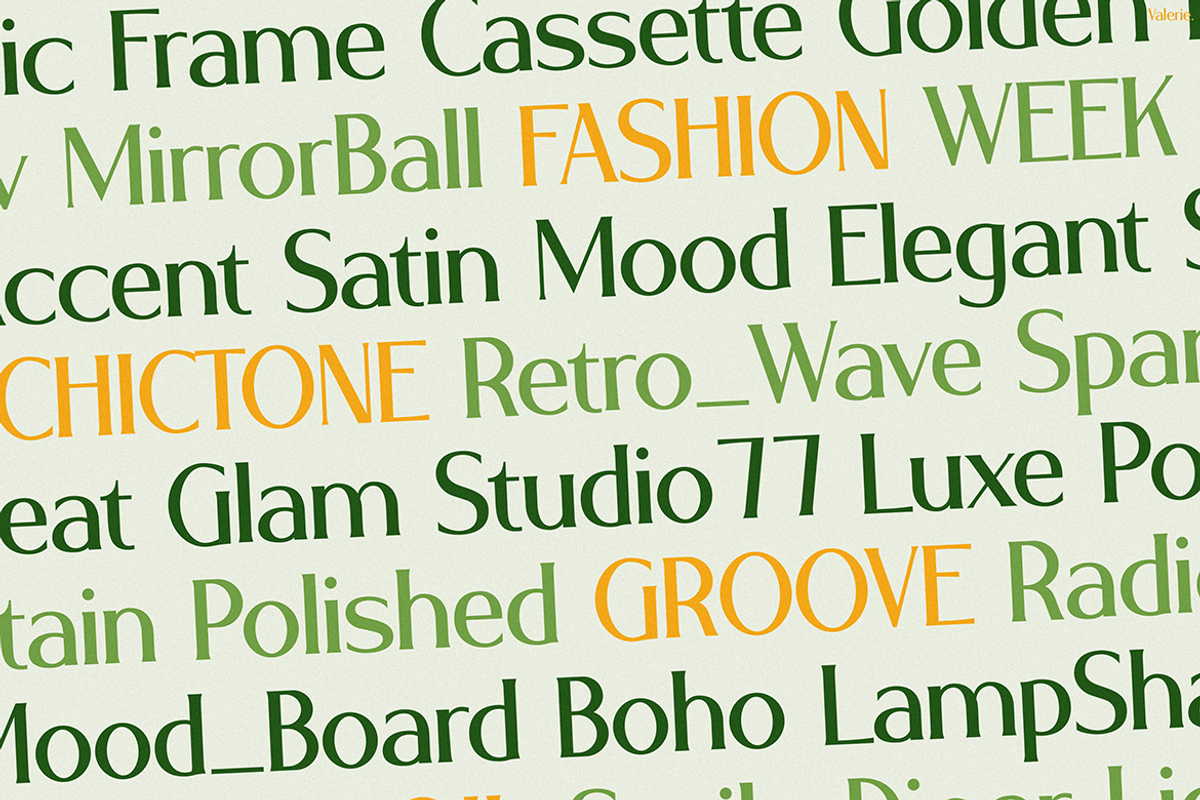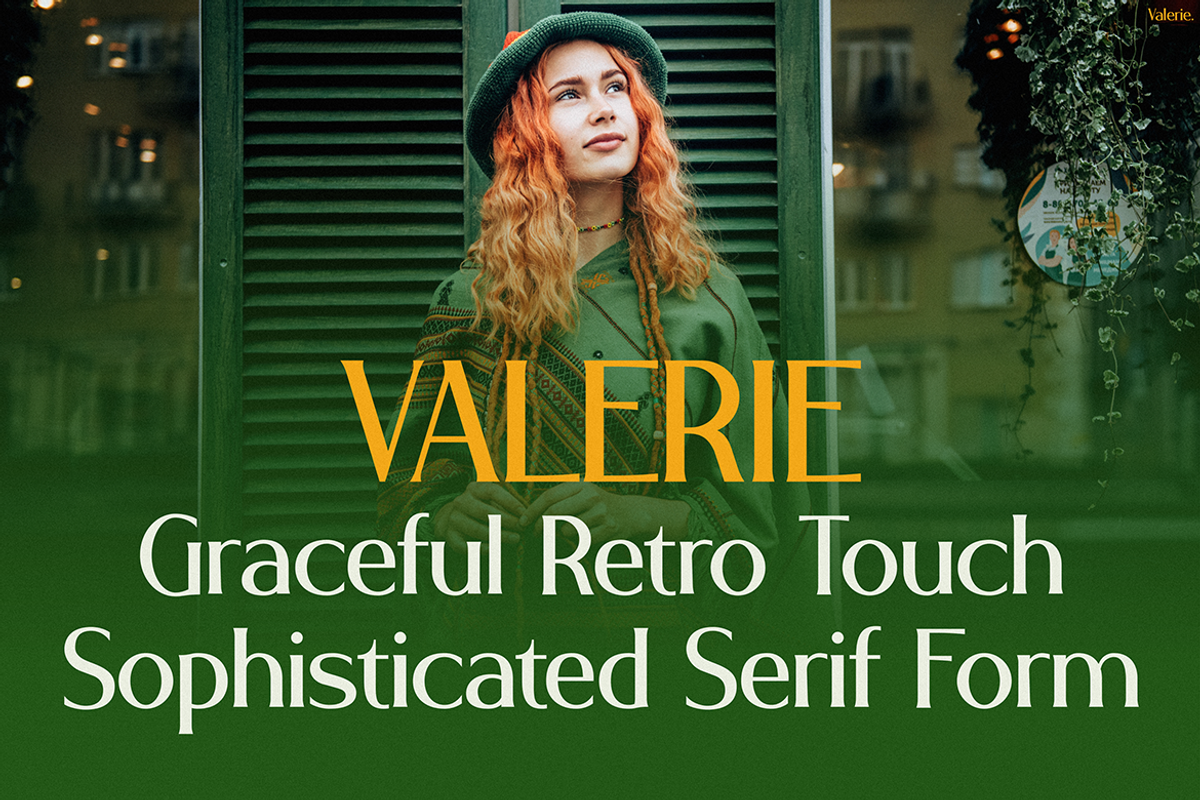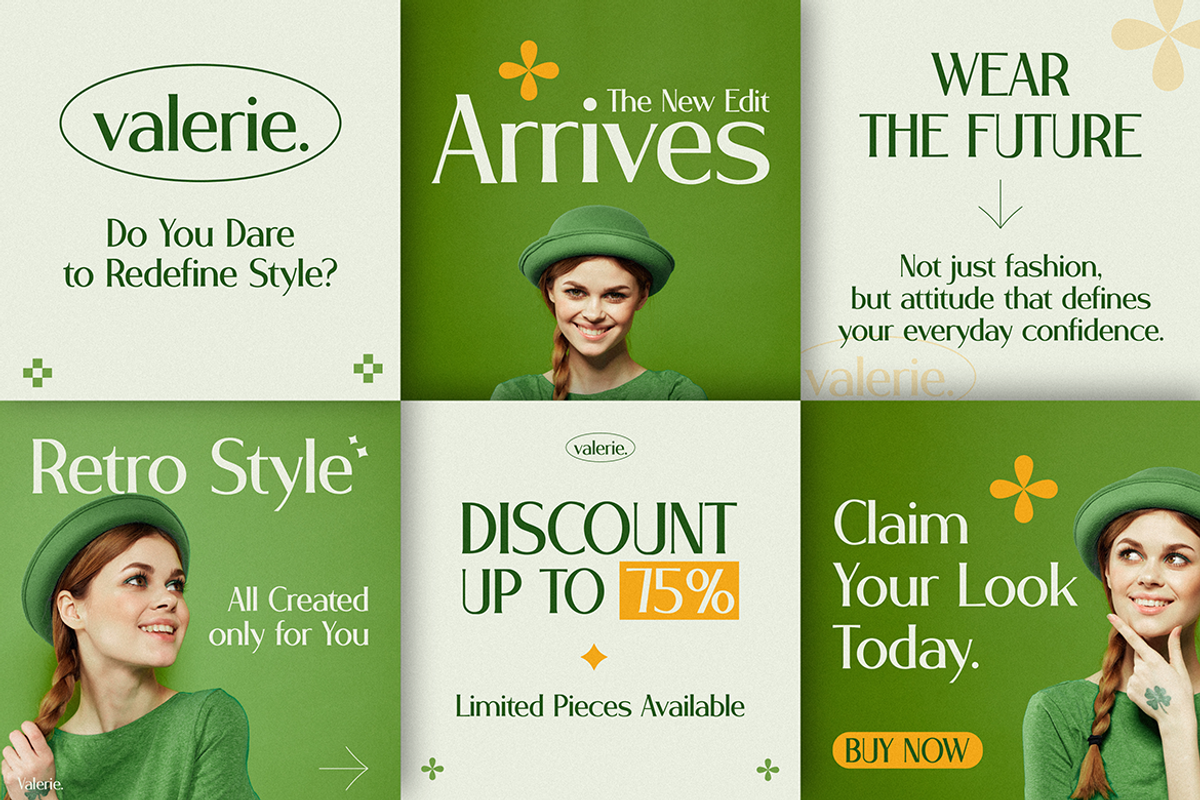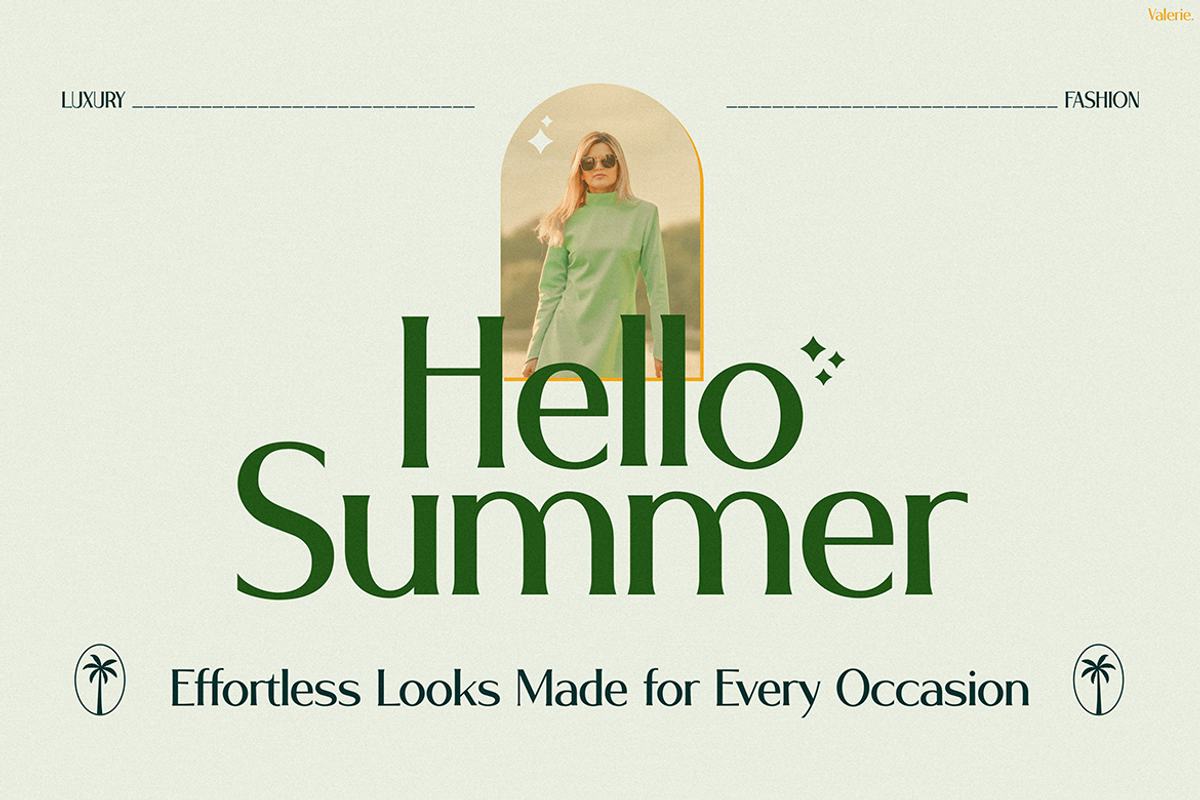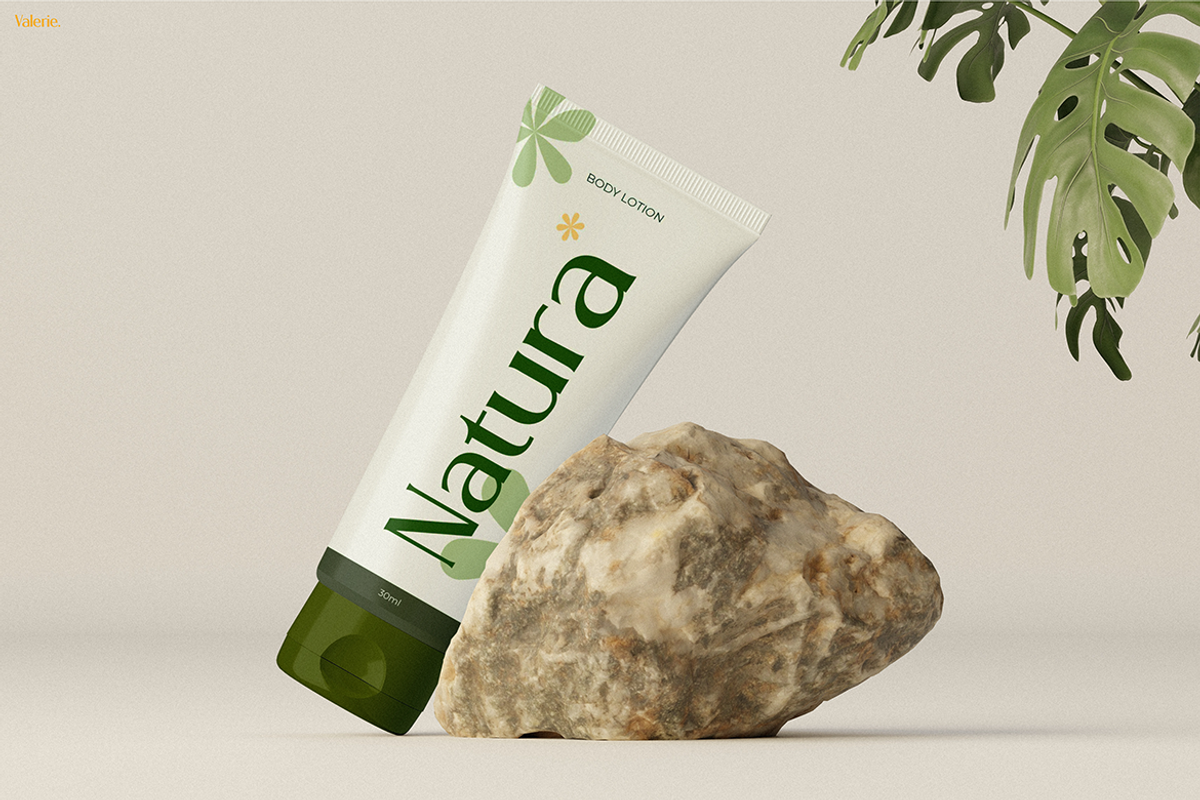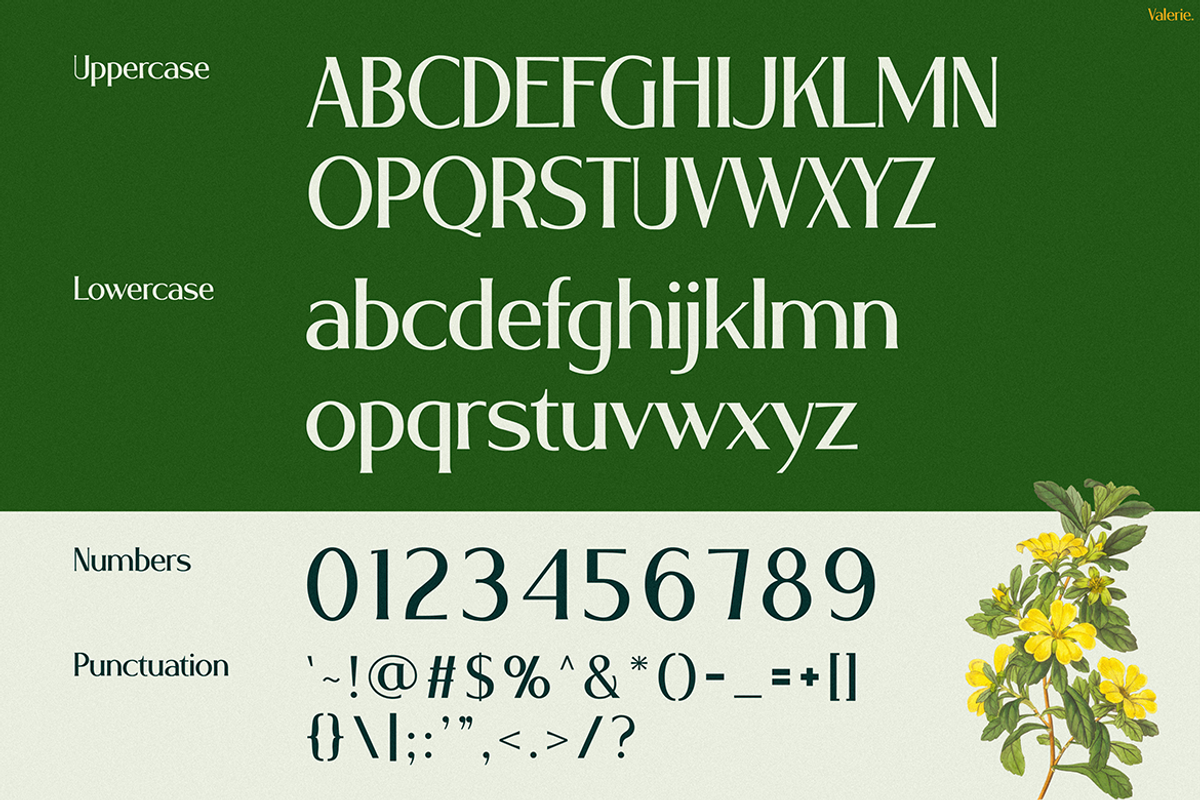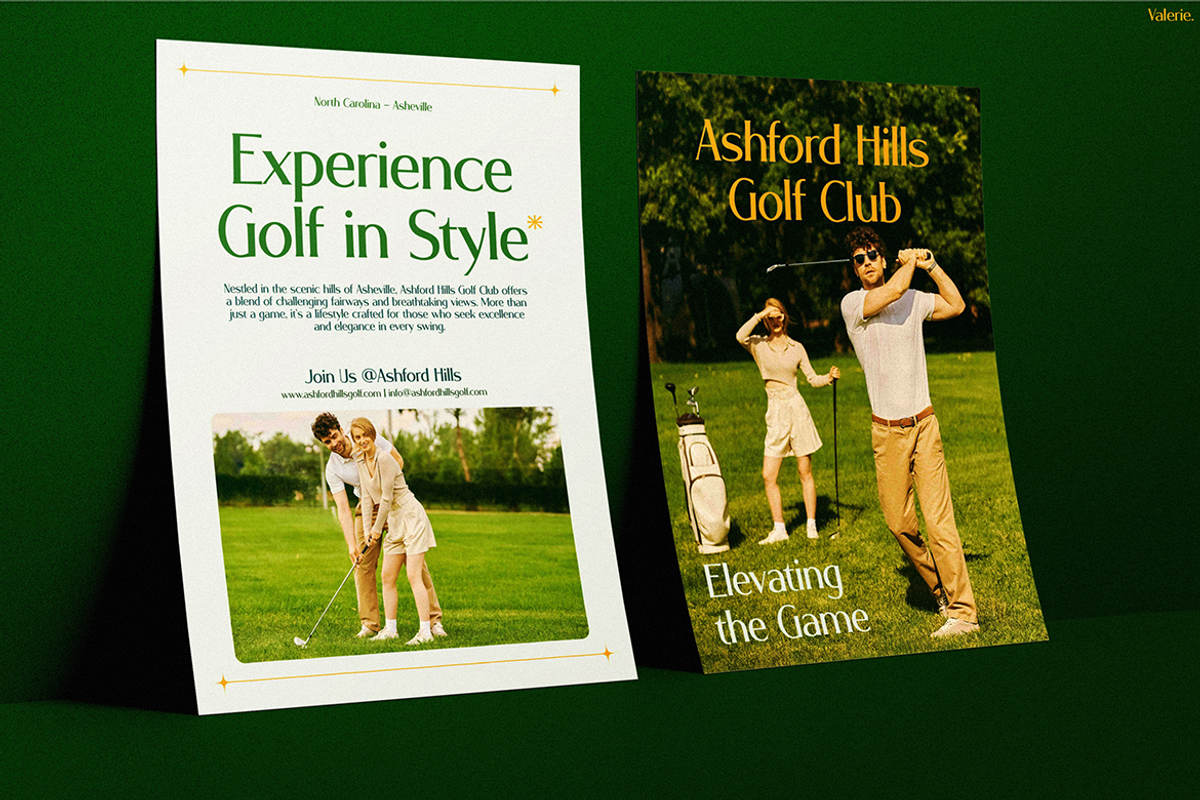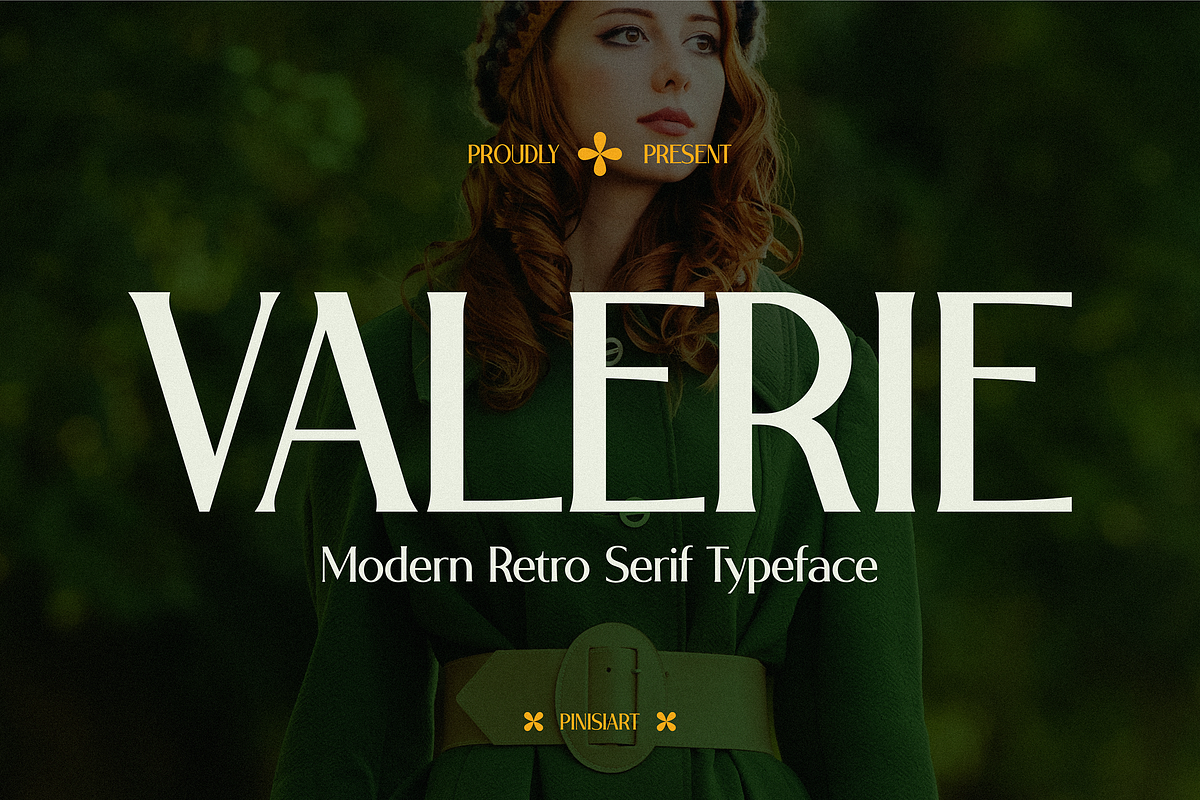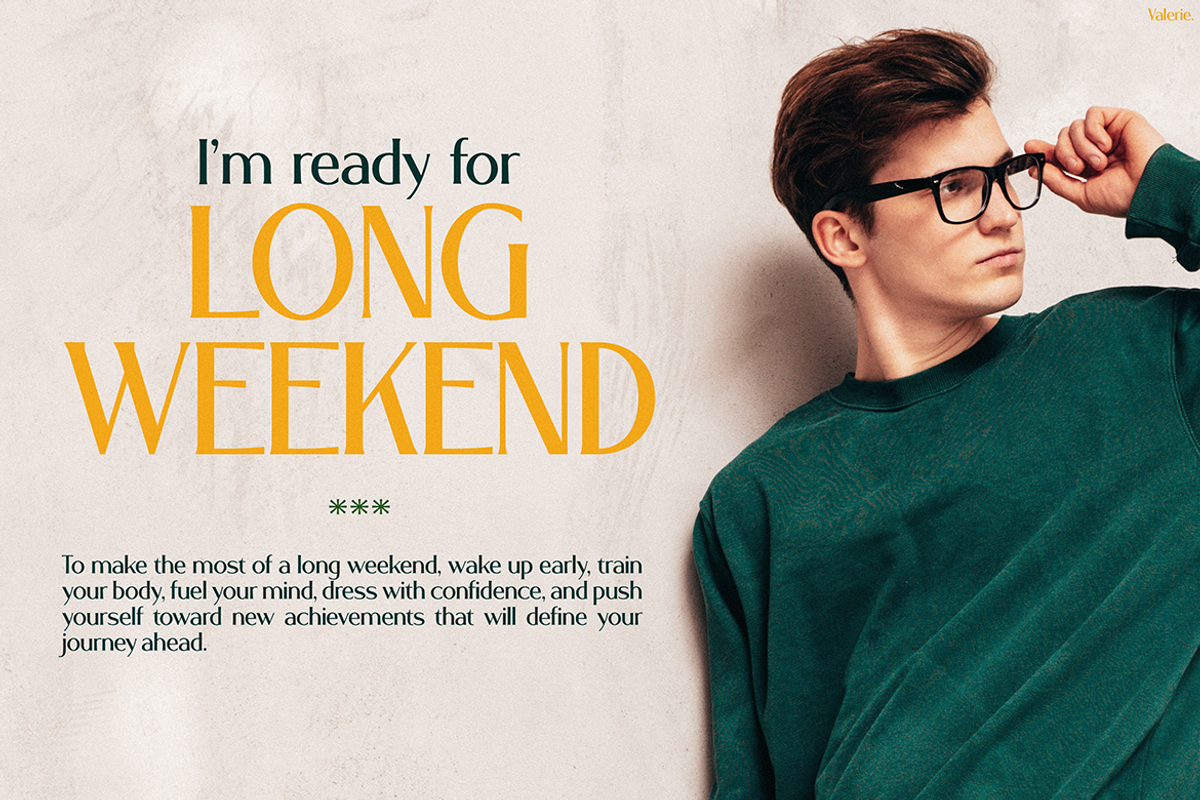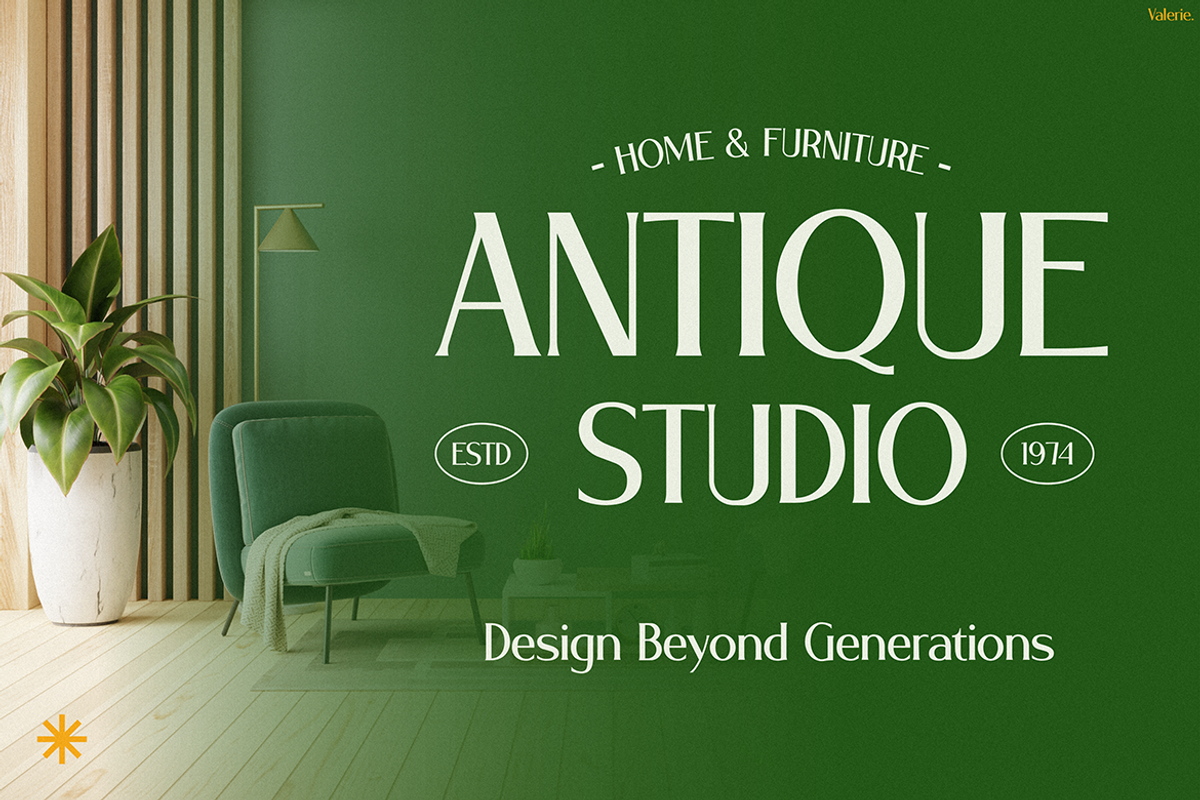
VALERIE
Instagram Font VALERIE is a modern retro serif typeface with elegance and personality. It combines vintage charm with a sleek, modern touch. Moreover, its bold yet refined letterforms create a balance between style and readability. As a result, VALERIE adds sophistication to branding, packaging, social media, and editorial work. Its graceful curves and retro details make every design look polished. Therefore, this font feels both nostalgic and contemporary at once, making it truly unique.
In addition, VALERIE includes uppercase, lowercase, numbers, and punctuation that are designed to flow harmoniously. Each character has been carefully crafted, ensuring consistency in every layout. Because of this, the typeface works well for both large headlines and smaller subheadings. While many fonts lose clarity when scaled down, VALERIE remains elegant at any size. This adaptability makes it a valuable addition to any designer’s toolkit.